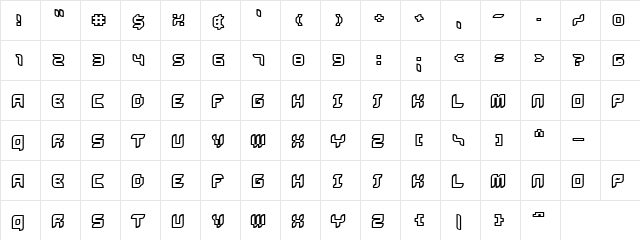
Pizza Put Regular
Design Context for Pizza Put Typeface
Pizza Put is a composed and adaptable typeface that performs quietly and consistently across a wide range of design contexts.